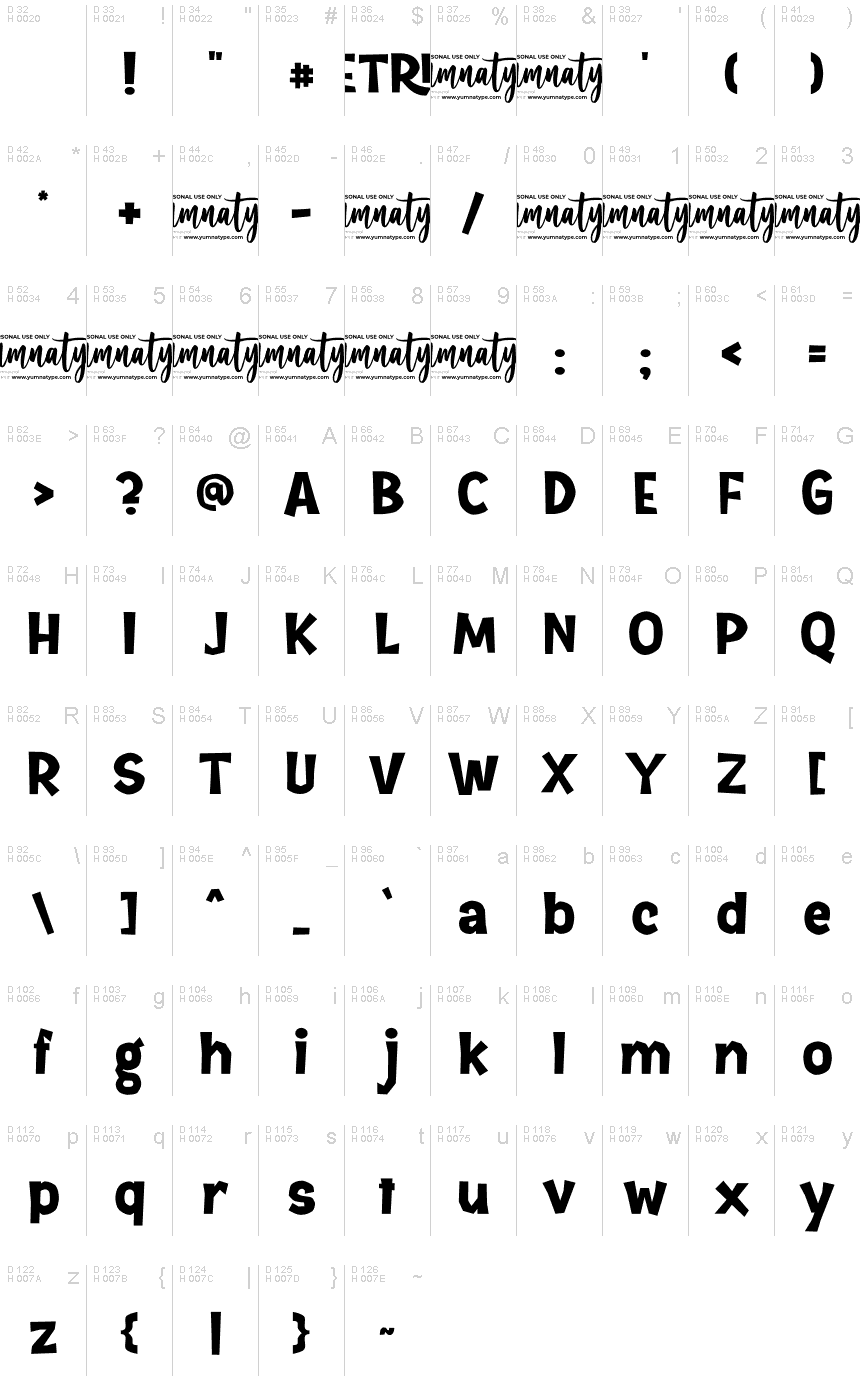
Retrim Personal Use
Retrim, a bold display font by Yumna Family, injects a playful vibe into any project.
With its cartoonish and comic-inspired style, it adds a touch of fun and whimsy to children's books, animated movie titles, and video game interfaces. The bold weight of Retrim ensures that your text stands out and grabs attention in posters, logos, and packaging designs.
Let this versatile font bring your creative ideas to life with its captivating charm and eye-catching presence.